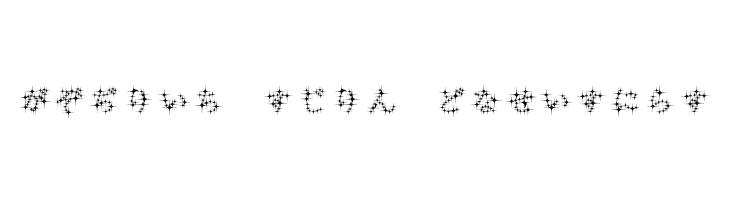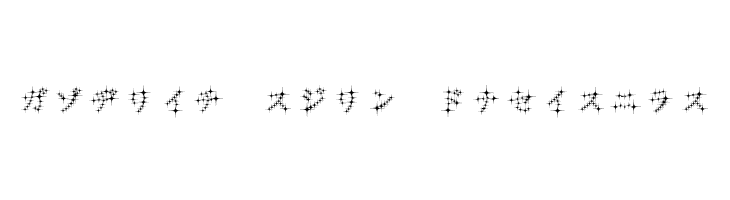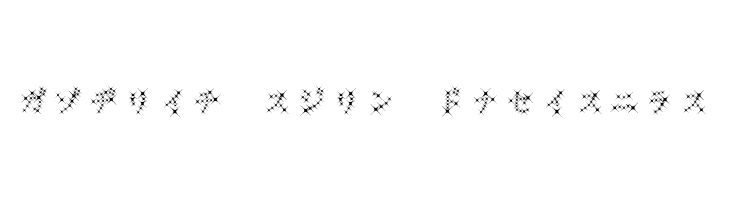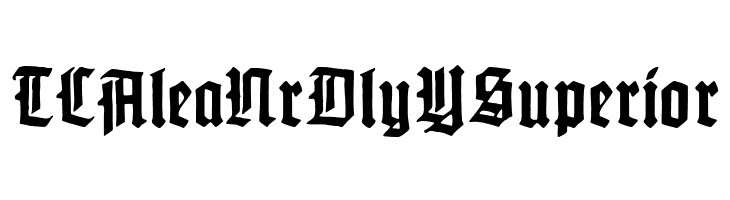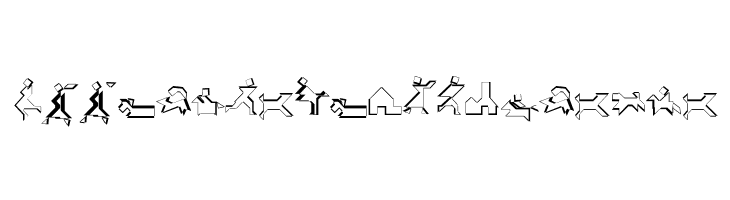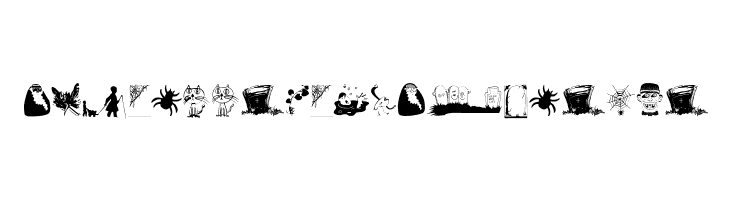
A bold, blackletter font with intricate, angular designs ideal for dramatic and historical themes.
A classic blackletter font with sharp, angular lines and high contrast, ideal for traditional and decorative uses.
Tangram-inspired abstract characters with geometric shapes.
A collection of illustrative and decorative elements with a whimsical and Halloween theme.
A collection of ancient Egyptian hieroglyphs, each symbolizing distinct ideas or sounds.
A decorative, horror-themed font with sharp, dripping strokes.
A futuristic font with a striped, geometric design ideal for tech and creative projects.
A clean, monospaced font with a minimalist design, ideal for digital displays.
A decorative, music-themed font with characters made from musical notes.
A bold, star-patterned decorative font ideal for festive designs.
A playful set of bold, high-contrast symbols ideal for creative projects.
A modern, bold, and condensed sans-serif font ideal for impactful headlines.
A highly condensed, clean, and organized font ideal for space-saving designs.
A bold, futuristic font with geometric and angular design, ideal for headlines.
A bold, dripping font perfect for horror-themed designs.
A clean, technical font with thin lines, ideal for modern designs.
A clean, modern monospaced typeface ideal for coding and technical documentation.
A digital, segmented font resembling calculator displays, ideal for technical themes.
A whimsical font using fish silhouettes to represent characters, ideal for aquatic-themed projects.